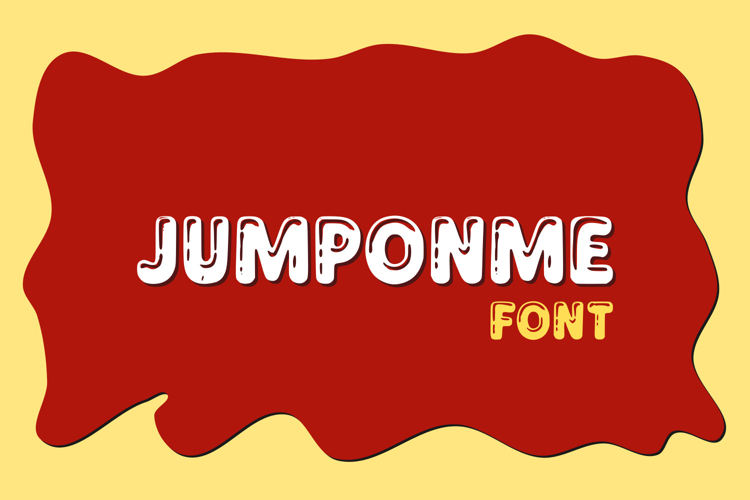
JUMPONME
Introducing a bold and confident typeface that speaks loud and clear, perfect for entrepreneurs in the food and beverage industry who want their branding to stand out. This font is built with strong, oversized characters that bring instant impact, making it a top choice for product packaging, logos, merchandise, menus, and signage. Whether you are running a coffee shop, food truck, bakery, or launching a new snack brand, this font adds a unique flavor to your visuals.
Its chunky letter forms are designed to grab attention without being over complicated, clean, modern, and full of personality. It has that street smart vibe with a touch of style, making it ideal for anyone who wants to look bold, creative, and fresh.
Use it on labels, storefronts, aprons, stickers, or social media content. This font works anywhere you need your message to pop. If you are looking for a typeface that brings both charm and power to your product, this one has your back. Simple to use, easy to love, and hard to ignore.
Give your brand a voice that is as strong as your product. Let the font do the talking.